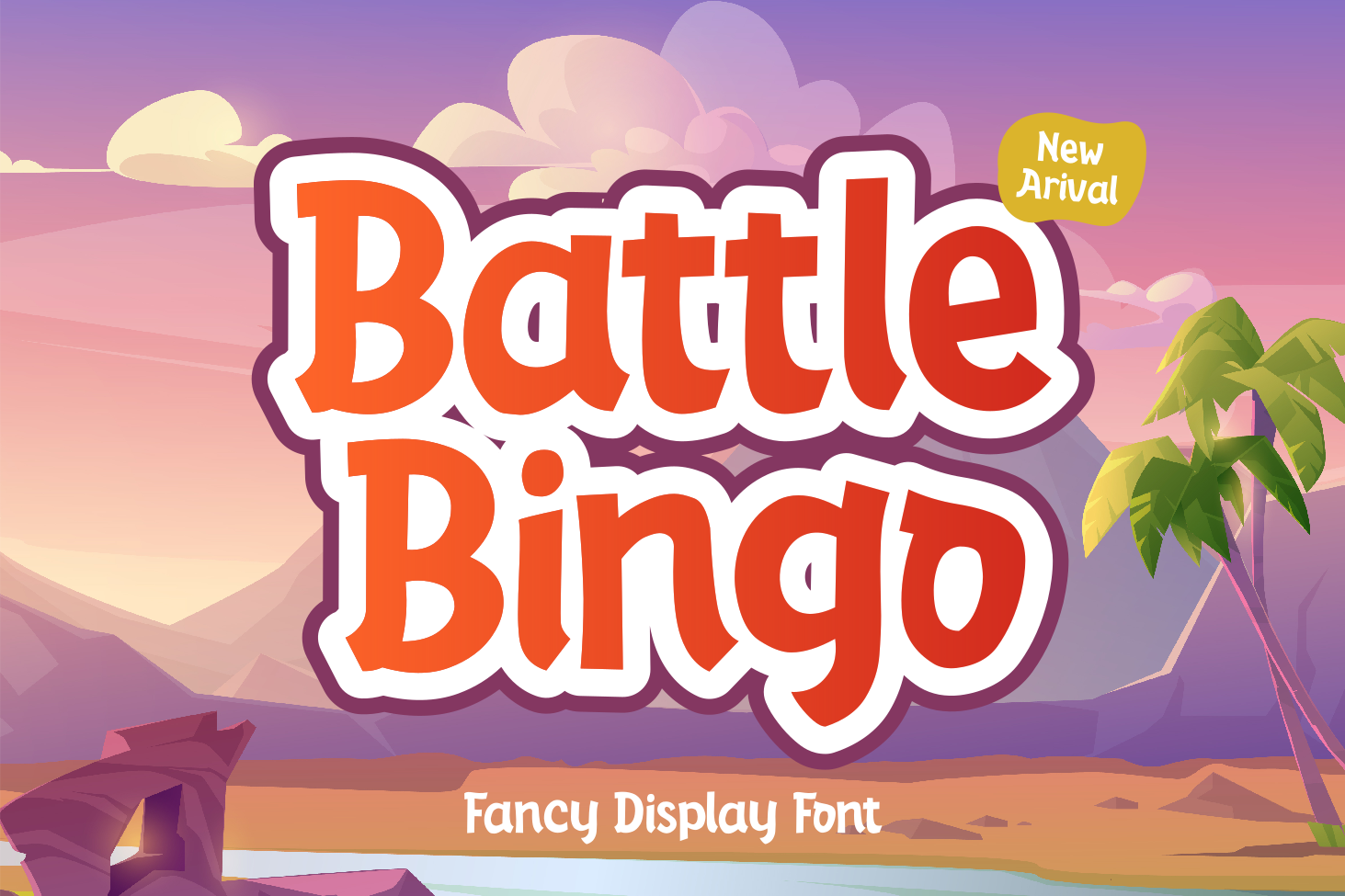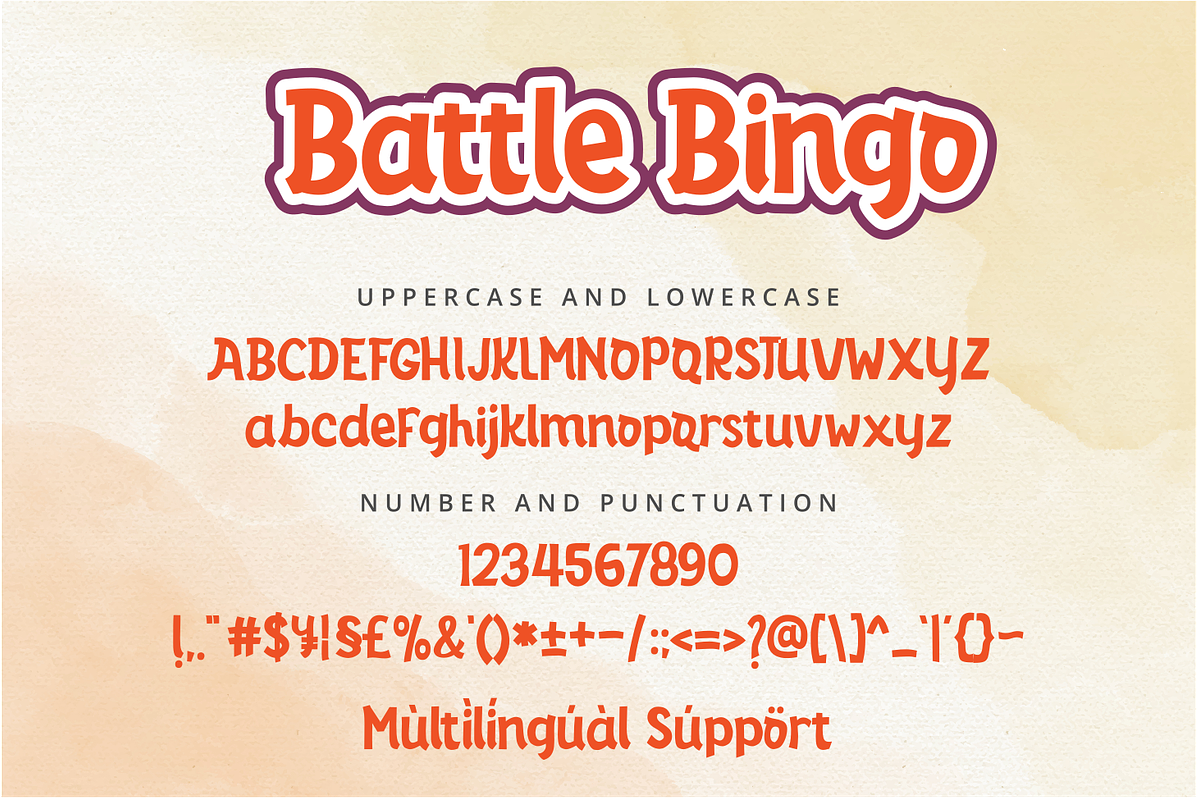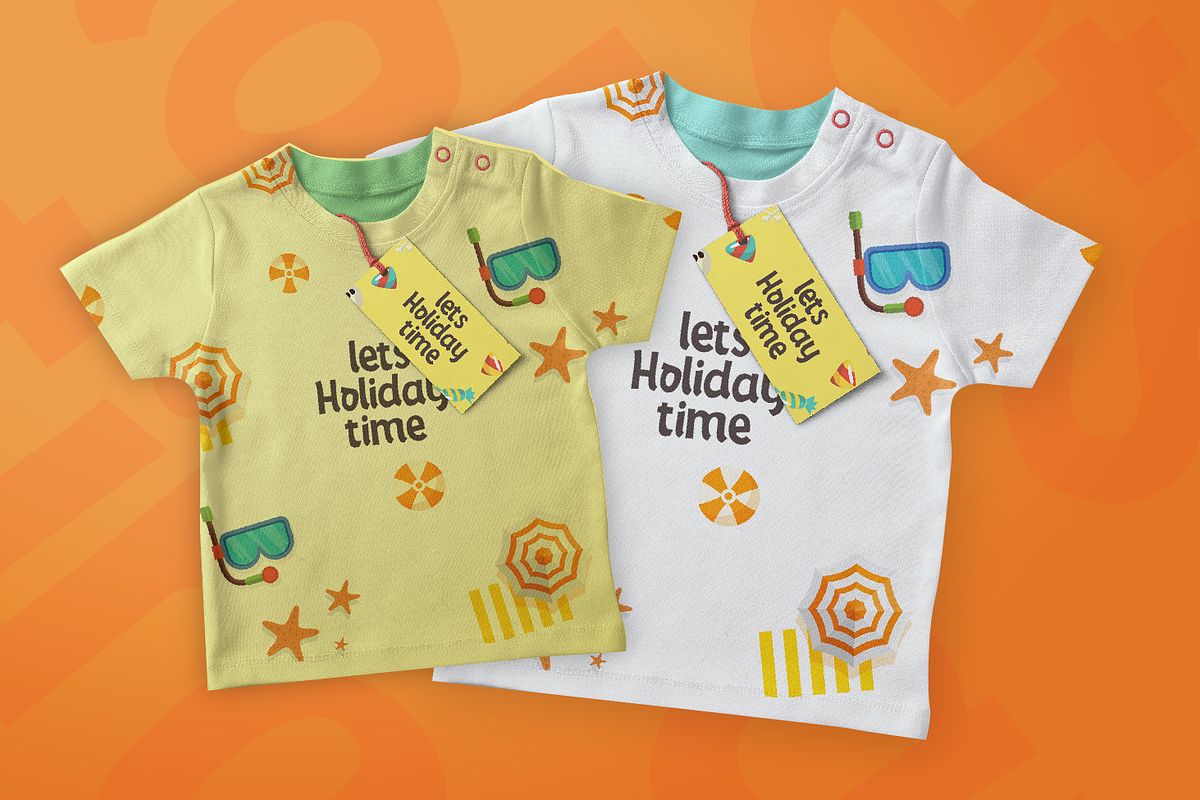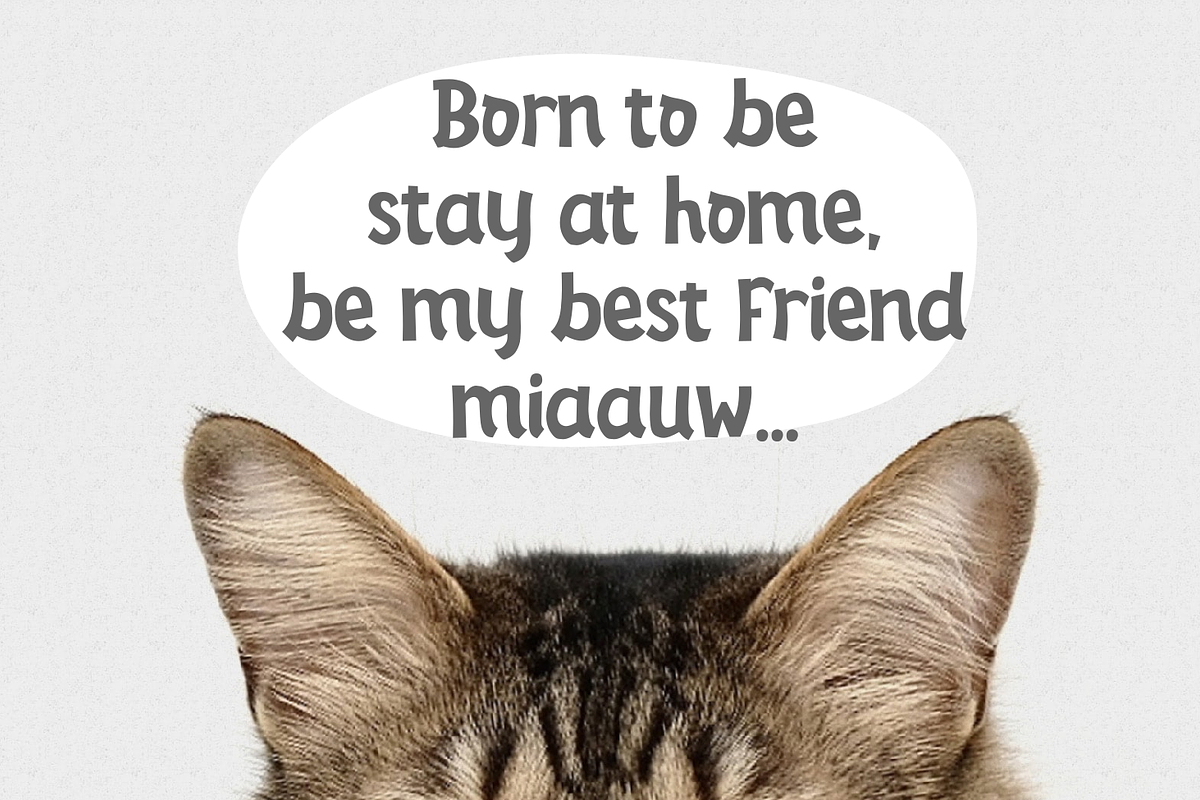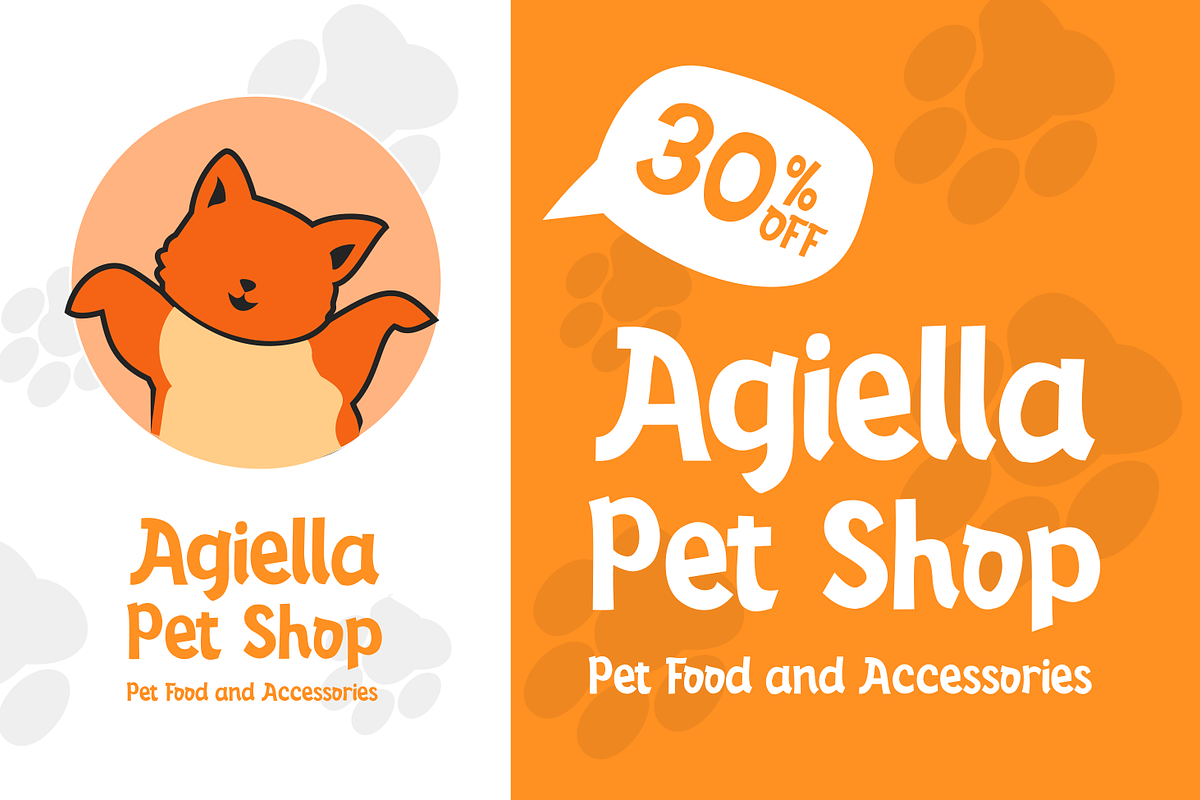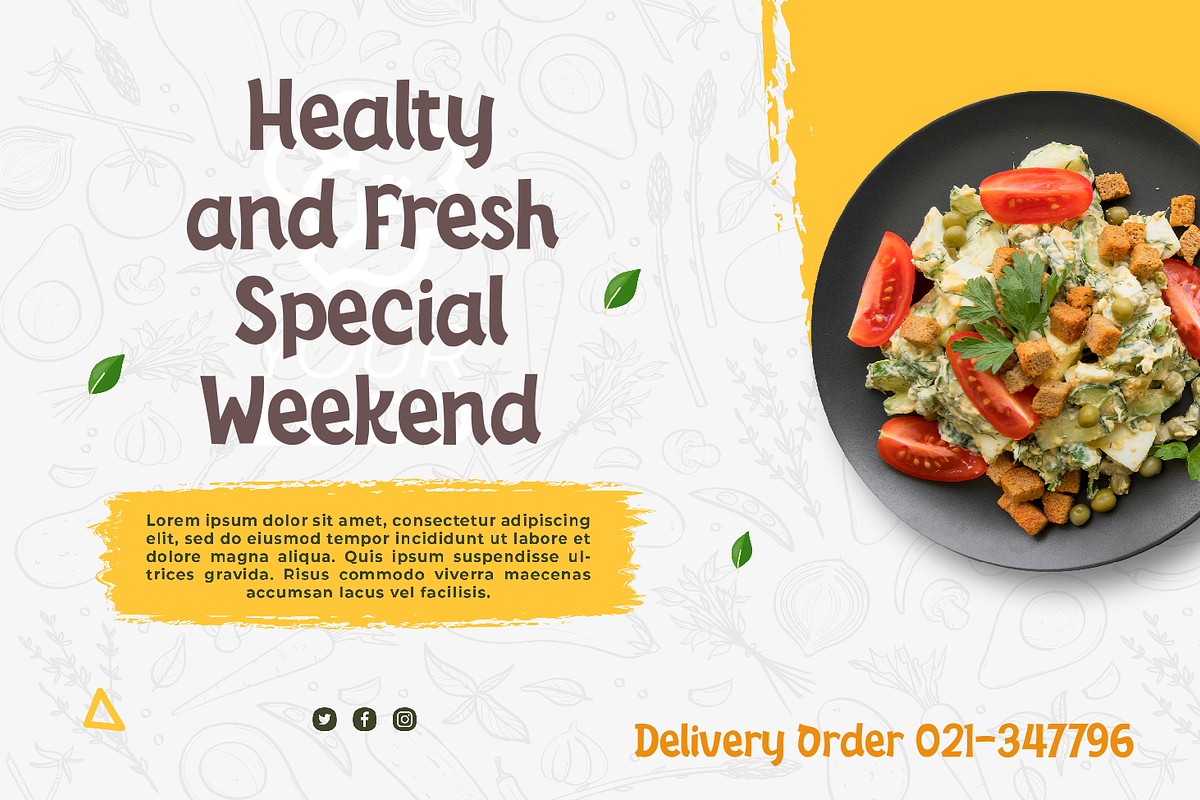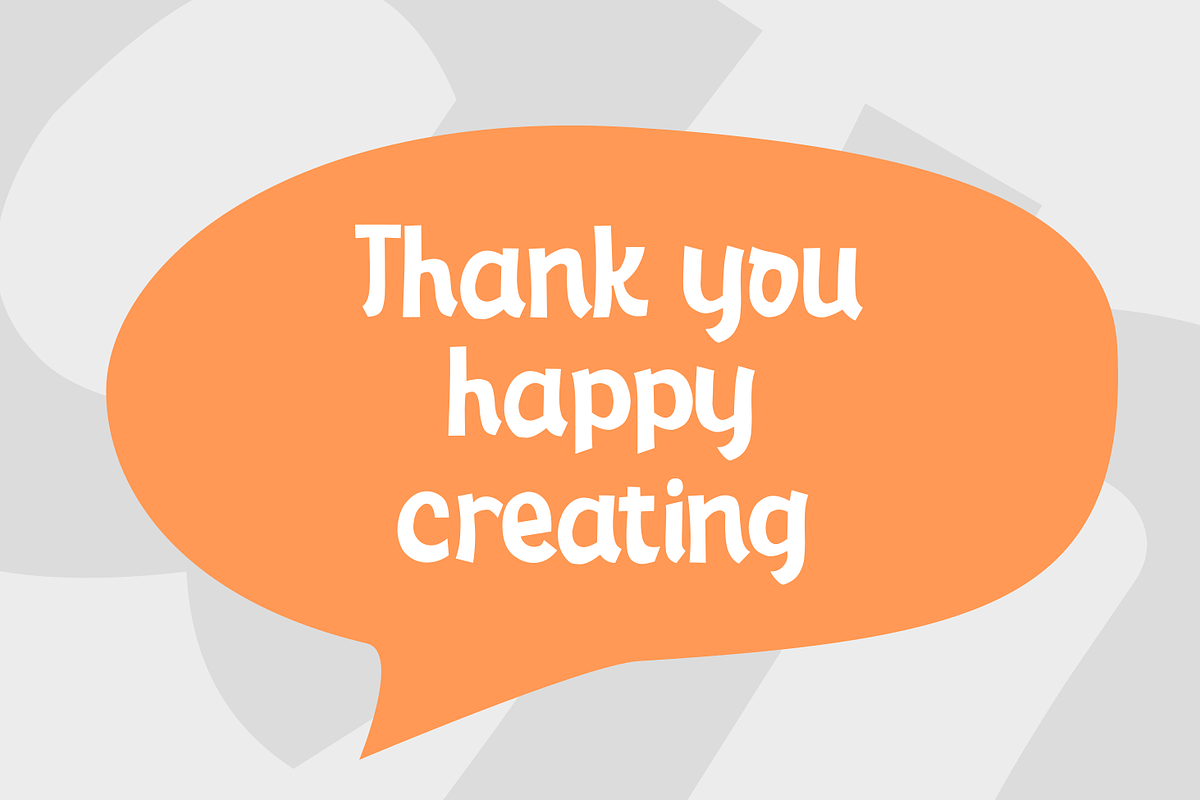
Battle Bingo - Fancy Display Font
Battle Bingo is Playful and Fancy font. It was created with freehand handwriting style using a marker. It look classy and happiness to all your designs.
You can use this font for a logo, kids clothing, invitation, poster, friendly design, fun design, book cover, adventure poster, outbound poster, and any cute and funny typeface needs and more.